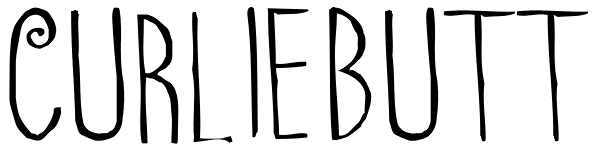
Curliebutt
Curlie, Funkie, Goofie, Sillie. Inspired by our favorite cartoons! Lowercase is uncurlie, Uppercase is, plus many alternate "curlie" ligatures! Curliebutt is an all caps font.